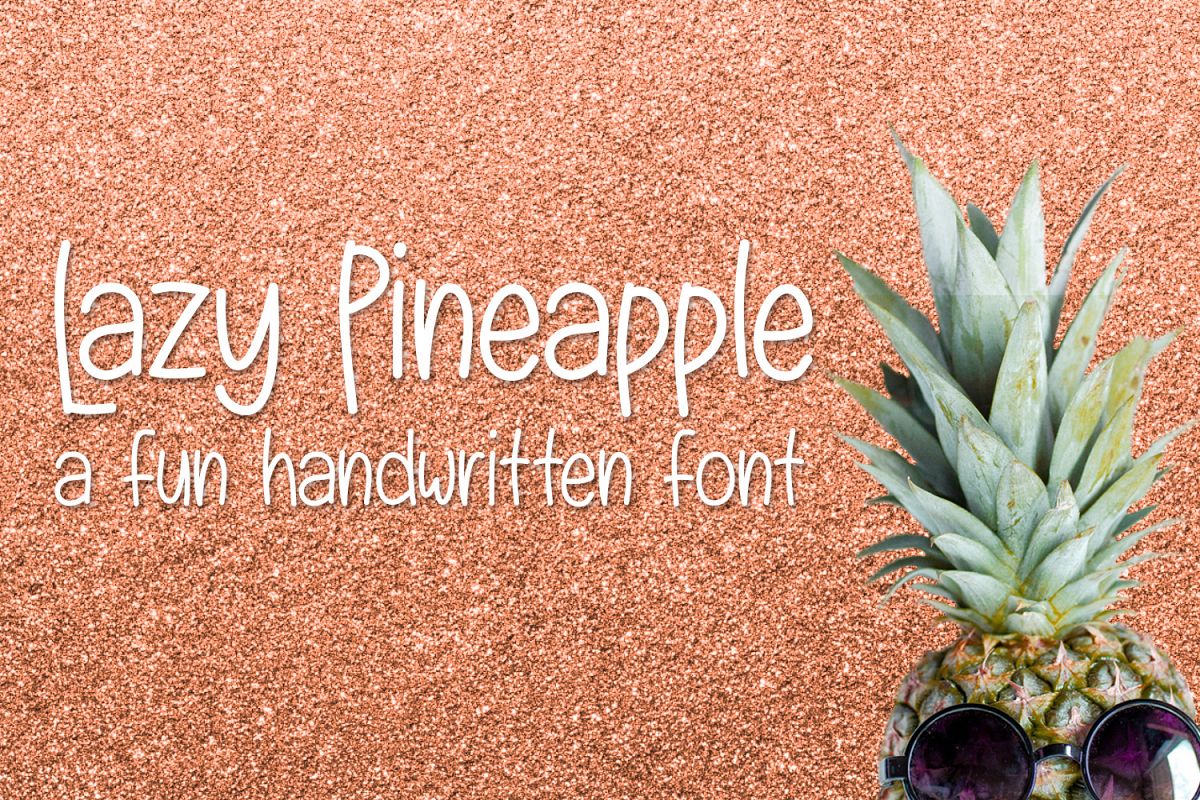
A fun handwritten font with a selection of dingbats included in PUA.
Lazy Pineapple uppercase letters are designed to sit lower than the lowercase letters to create a relaxed feel to your design.